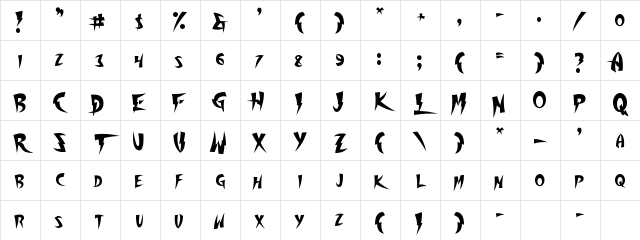
Thundercover Regular Free Font
Thundercover Regular
Designer: AM
Complete Thundercover Regular glyph index. Displaying only characters natively supported by Thundercover Regular font.
Design Context for Thundercover
Thundercover is a composed and adaptable typeface that performs quietly and consistently across a wide range of design contexts.